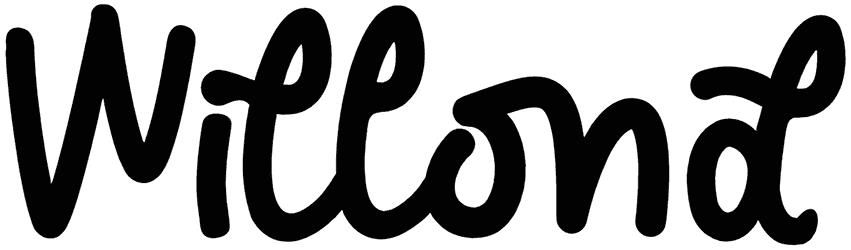
If you want to put all of your creative ideas, including gift cards, greeting cards, invitations, flyers, or social media posts at the center of attention, you should never overlook a lovely cartoon font such as Coffee And Macaroons. Since its characters are a little bit crooked and curved, it can bring a sense of playfulness, disorder, grunge, or momentum to your artwork.